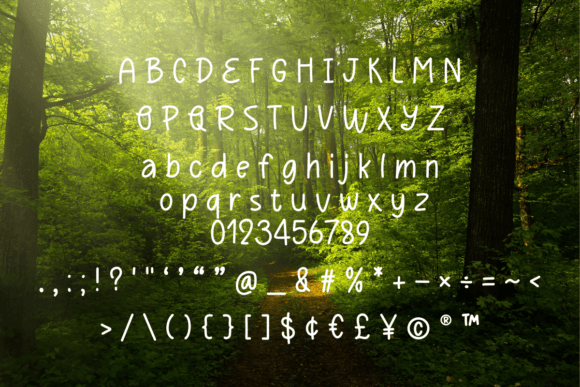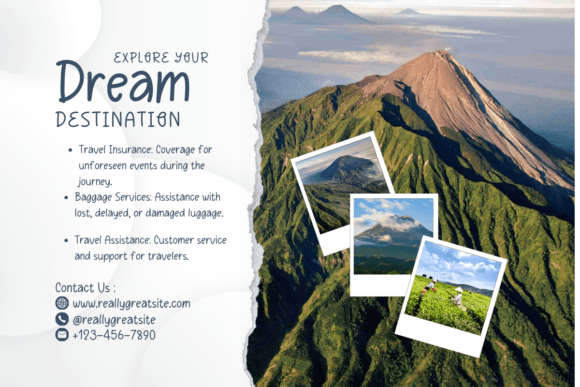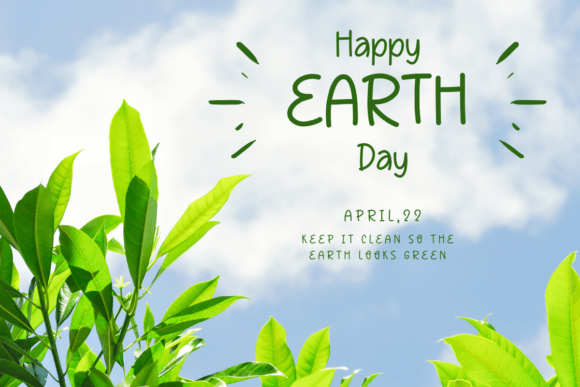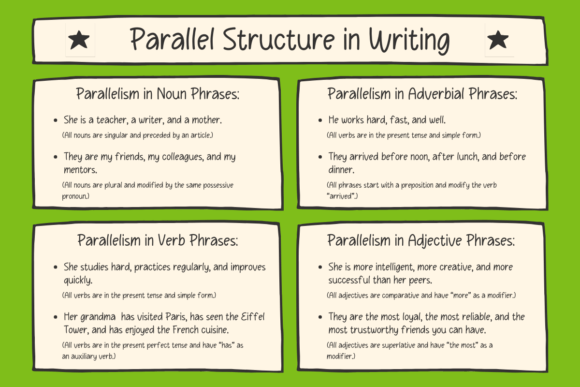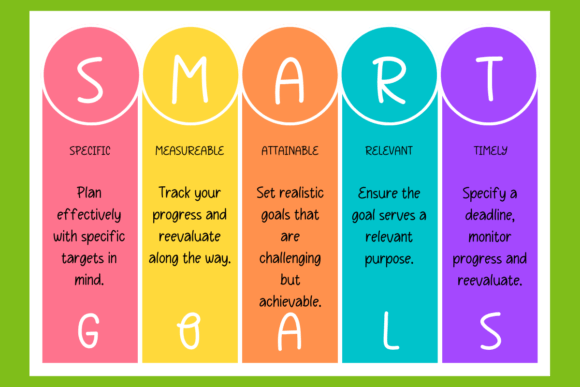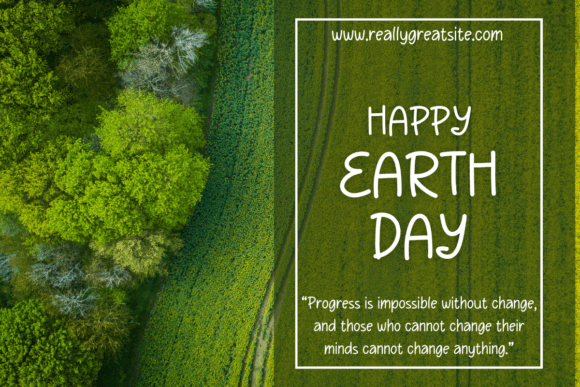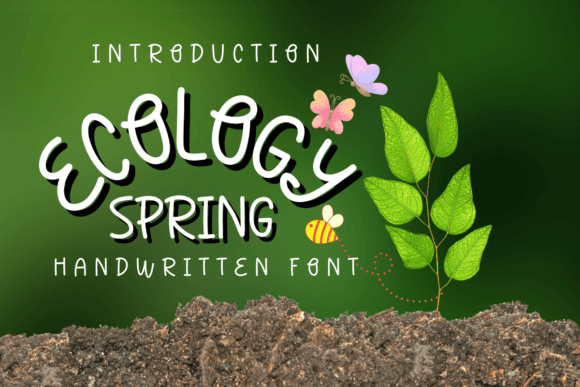
Ecology Spring Font: A Charming Handwritten Style for Creative Projects
Are you a designer, crafter, or DIY enthusiast looking for a unique and versatile font to add a personal touch to your projects? Look no further than Ecology Spring, a beautiful handwritten font that’s perfect for a wide range of creative applications. In this article, we’ll explore the features and benefits of Ecology Spring, and show you how to make the most of this lovely font in your designs.
What is Ecology Spring Font?
Ecology Spring is a handwritten font that’s been carefully crafted to bring a touch of warmth and personality to your projects. With its flowing, cursive lines and whimsical feel, this font is perfect for adding a human touch to your designs. Whether you’re creating a greeting card, writing a diary entry, or designing a banner, Ecology Spring is the perfect choice.
Uses for Ecology Spring Font
• Note-taking and journaling: Ecology Spring is perfect for taking notes, writing diary entries, or jotting down ideas. Its flowing lines and cursive feel make it easy to write and read.
• Greeting cards and invitations: Add a personal touch to your greeting cards and invitations with Ecology Spring. Its whimsical feel is perfect for birthdays, holidays, and special occasions.
• Banners and signs: Use Ecology Spring to create eye-catching banners and signs for parties, events, or promotions.
• Social media posts: Add a touch of personality to your social media posts with Ecology Spring. Use it to create engaging captions, quotes, or messages.
• Mugs, cards, and stationery: Ecology Spring is perfect for designing custom mugs, cards, and stationery. Add a personal touch to your gifts or correspondence.
• T-shirts and apparel: Use Ecology Spring to create custom t-shirts, hoodies, or other apparel. Its whimsical feel is perfect for designing fun and casual wear.
Benefits of Using Ecology Spring Font
• Unique and eye-catching: Ecology Spring is a one-of-a-kind font that’s sure to grab attention. Its whimsical feel and flowing lines make it stand out from more traditional fonts.
• Versatile: Ecology Spring can be used for a wide range of projects, from note-taking and journaling to designing banners and social media posts.
• Easy to read and write: Despite its cursive feel, Ecology Spring is easy to read and write. Its flowing lines make it perfect for taking notes or writing diary entries.
• Customizable: Ecology Spring can be customized to fit your needs. Experiment with different colors, sizes, and styles to create a unique look.
Tips for Using Ecology Spring Font
• Experiment with colors: Ecology Spring looks great in a variety of colors. Experiment with different hues and shades to find the perfect look for your project.
• Mix and match with other fonts: Ecology Spring can be paired with other fonts to create a unique look. Try combining it with a bold font for headings or a sans-serif font for body text.
• Use it for emphasis: Ecology Spring is perfect for adding emphasis to your text. Use it to highlight important points or add a touch of personality to your designs.